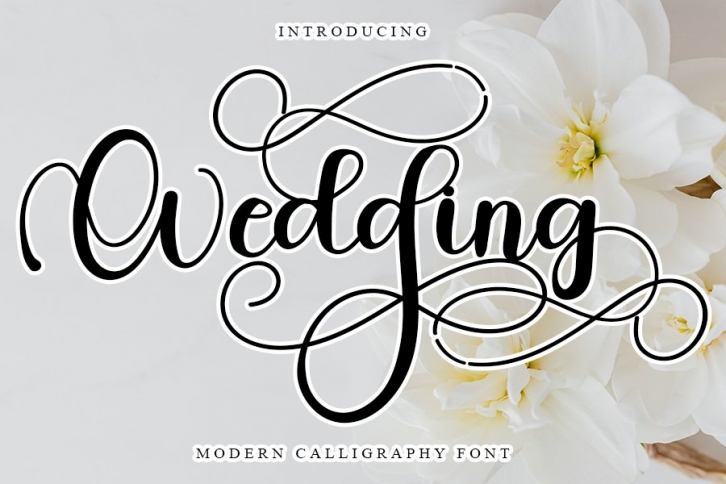
Wedding is a beautiful font that was designed by NYA Letter. It's a great choice for designers and creatives who need such a font. It was released on May 5, 2022 and the file size is 3.60 MB. Wedding may give a more youthful, expressive and casual look to your project. It is a very beautiful, refined, elegant, and high-quality font.